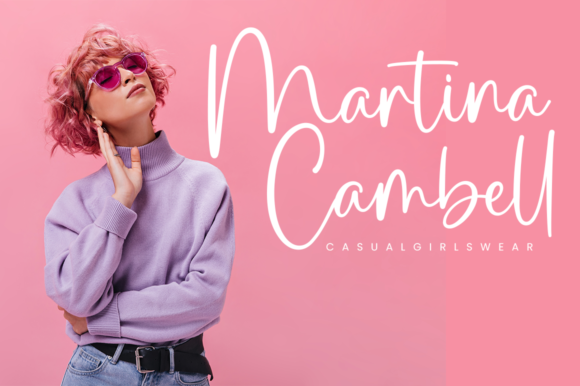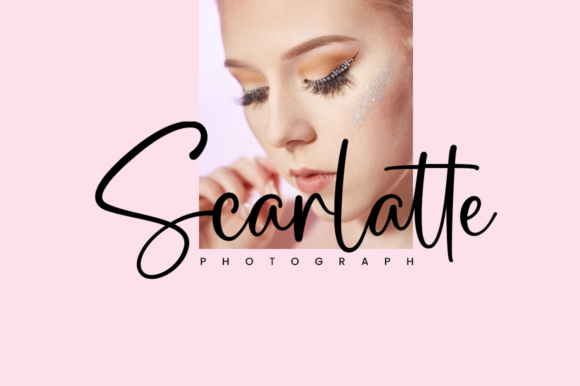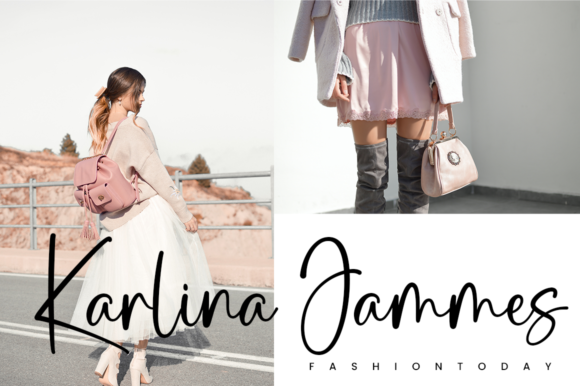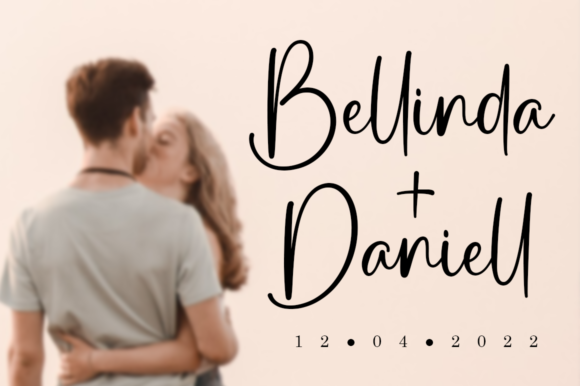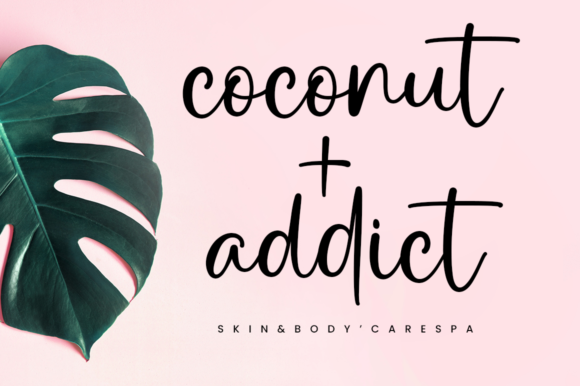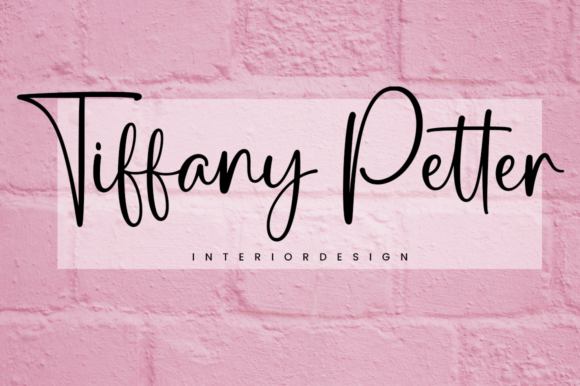
Introduction to Pink Apple Font
As you sit in front of your computer, brainstorming ideas for your next creative project, you’re suddenly hit with a burst of inspiration. The design possibilities seem endless, but one thing is missing – the perfect font to bring your vision to life. That’s where the Pink Apple Font comes in, offering a touch of elegance and sophistication to elevate your designs to the next level.
Whether you’re a seasoned designer or just starting out, the Pink Apple Font is a valuable resource that can add a high-quality, professional touch to your work. With its delicate script and transparent background, this font is perfect for designers looking to create a unique and eye-catching look. And the best part? It’s PUA encoded, making it easy to access all of the glyphs and swashes you need to bring your designs to life.
In this article, we’ll dive deeper into the world of the Pink Apple Font, exploring its features and benefits, and discovering why it’s a must-have design resource for any creative project.
Key Features of Pink Apple Font
- High-quality design resource with a unique, playful style perfect for creative projects.
- Features a transparent background, allowing for easy customization and layering in your designs.
- Includes a range of glyphs and characters, making it a versatile design resource for various creative projects.
- Designed to be highly legible, even at small font sizes, ensuring your designs remain clear and readable.
Honest Review: Pink Apple Font
As a designer, I’m always on the lookout for high-quality design resources to elevate my creative projects. The Pink Apple Font has been a recent addition to my toolkit, and I’m excited to share my thoughts on it.
What works well: ✨ I love the unique, cursive style of the Pink Apple Font, which adds a touch of elegance to any design. The font is also highly customizable, making it perfect for branding and marketing materials. Additionally, the transparent background allows for seamless integration with any design element.
Limitations: ⚠️ While the Pink Apple Font is free to download, it’s only available in a single weight. This may limit its usability for certain design projects that require multiple font weights. Additionally, the font may not be suitable for small text sizes due to its decorative nature.
Overall, I’m impressed with the Pink Apple Font’s potential for adding a touch of sophistication to my designs. Its unique style and customization options make it a valuable addition to my design resource library.
- Unique, cursive style
Introduction to Pink Apple Font
Pink Apple Font is a high-quality design resource perfect for creative projects that require a touch of elegance and sophistication. With its unique and eye-catching style, this font is ideal for a wide range of applications.
Transparent Background and Customization
The Pink Apple Font features a transparent background, allowing you to easily customize it to fit your design needs. Experiment with different colors and combinations to create a unique look that suits your project.
Common Use Cases for Pink Apple Font
Pink Apple Font is perfect for a variety of creative projects, including branding, marketing materials, and digital art. Its unique style and high-quality design make it an excellent choice for designers and artists looking to add a touch of sophistication to their work.